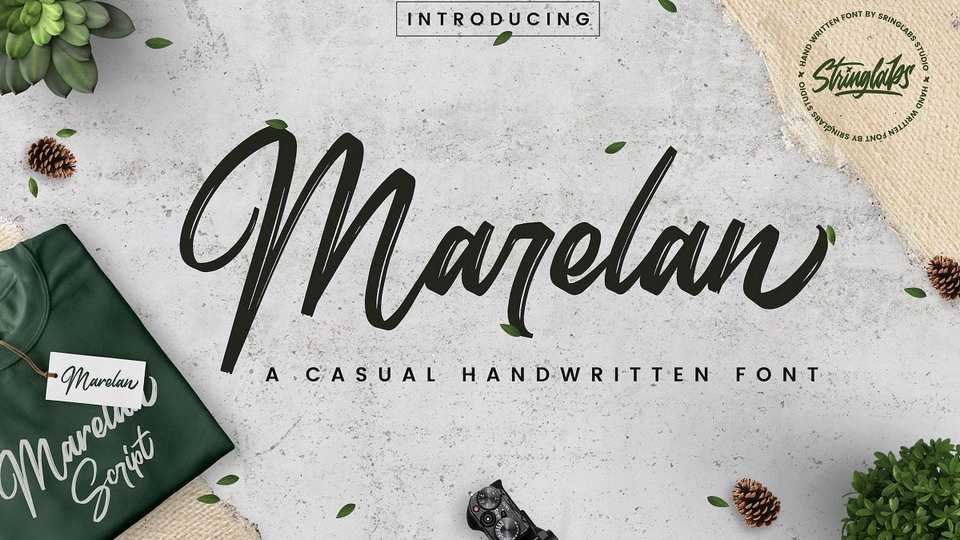
Download Marelan font, a casual handwritten typeface made with a unique and authentic style. Marelan font is perfect for those of you lovers of fonts with a casual and natural style.